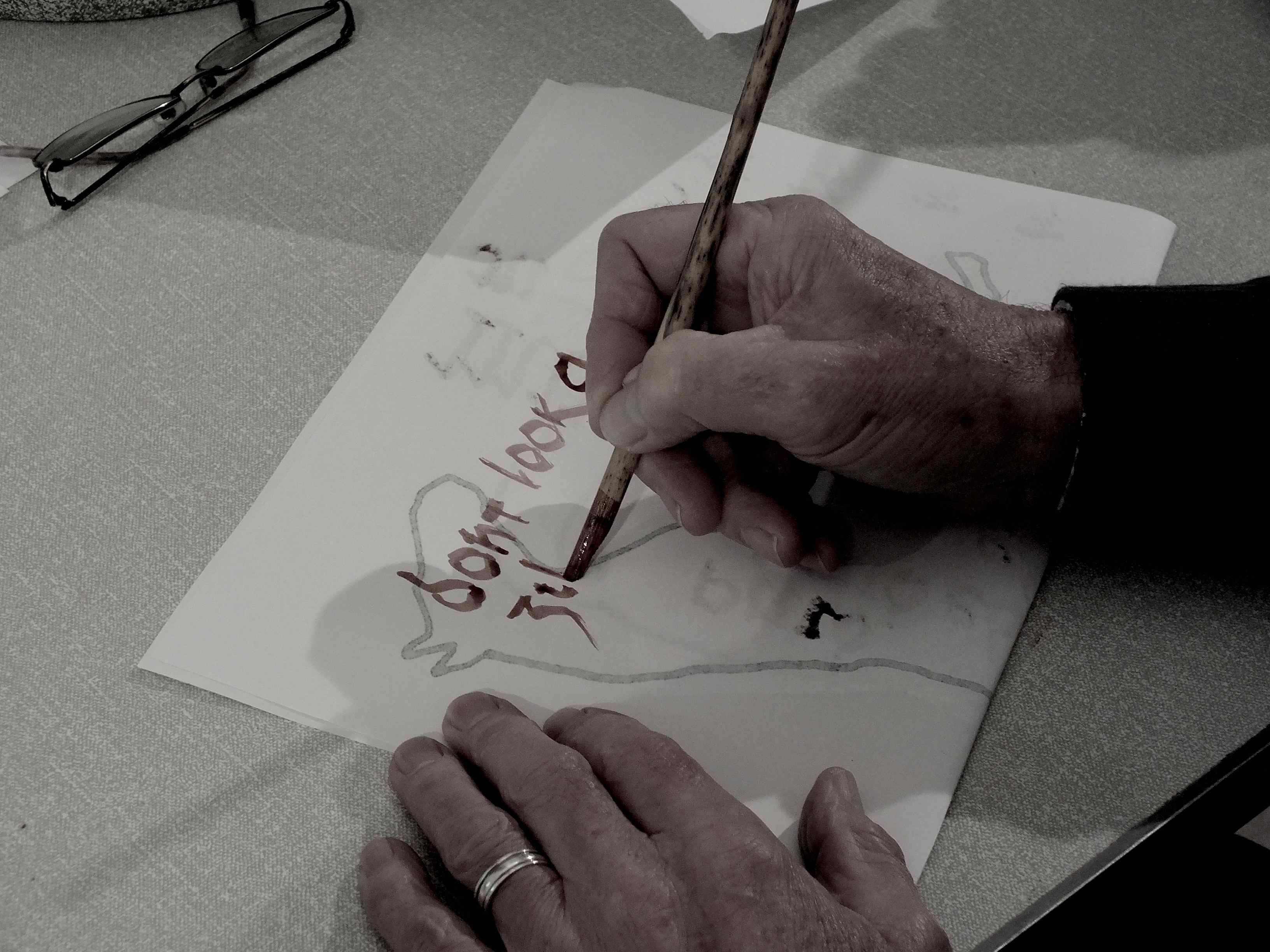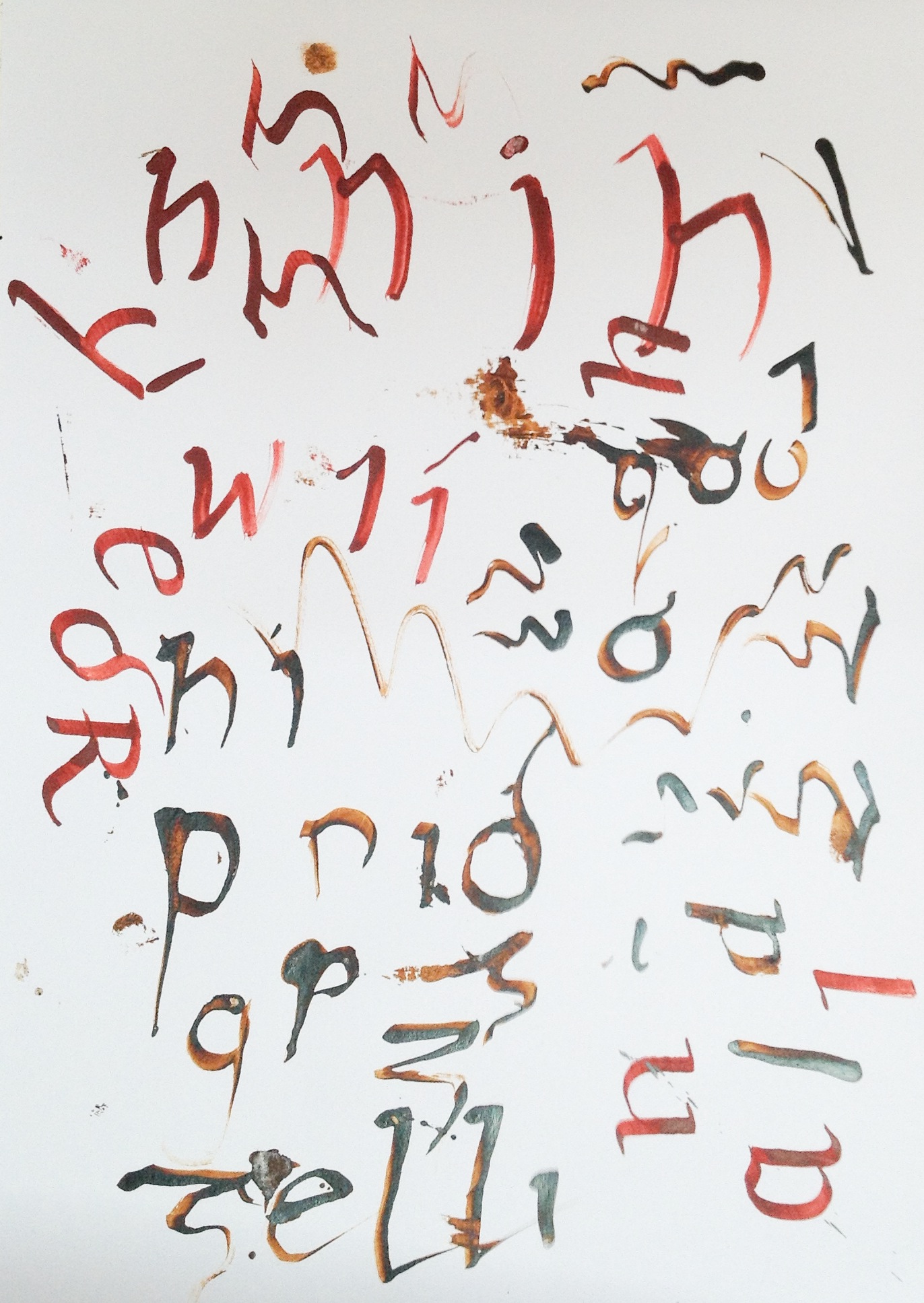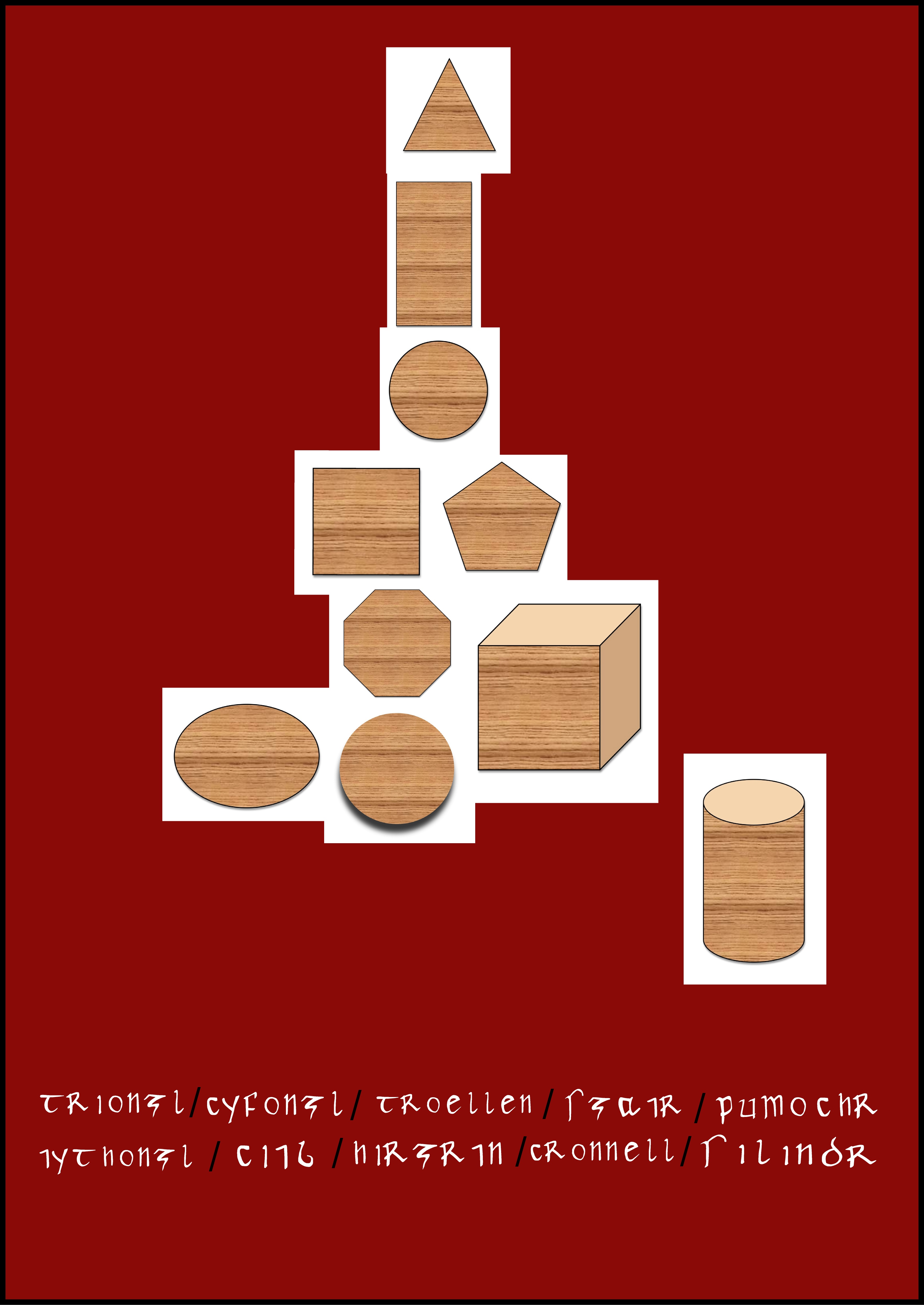
A drop in workshop to discover more about a typeface based on the Surexit Manuscript written in the 9th Century in the margins of the St Chad Gospel, these words/letters by an unknown hand writing in Old Welsh is now a Free typeface offering the opportunity to keep the work of this unknown person alive through its continued use on your computer. I will be available to discuss the project from 11-12.30 and again from 2.00-3.30. I have also wandered into the wetland reserve in Cardiff and gathered reeds which can be fashioned into early pens so people can write messages in the style of ‘the hand’ from over 1000 years ago in the same location.